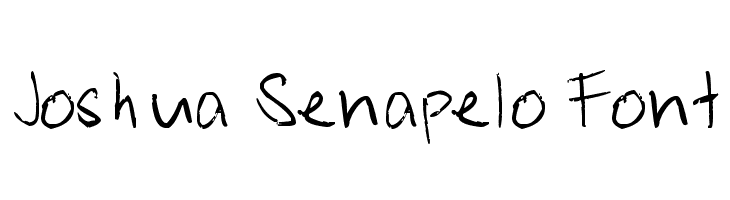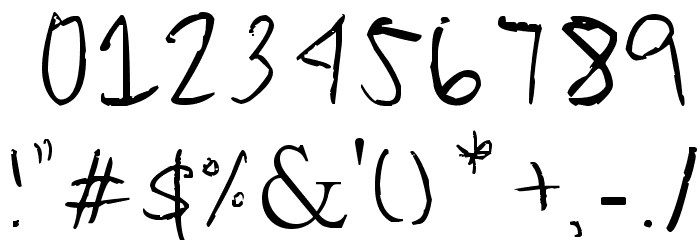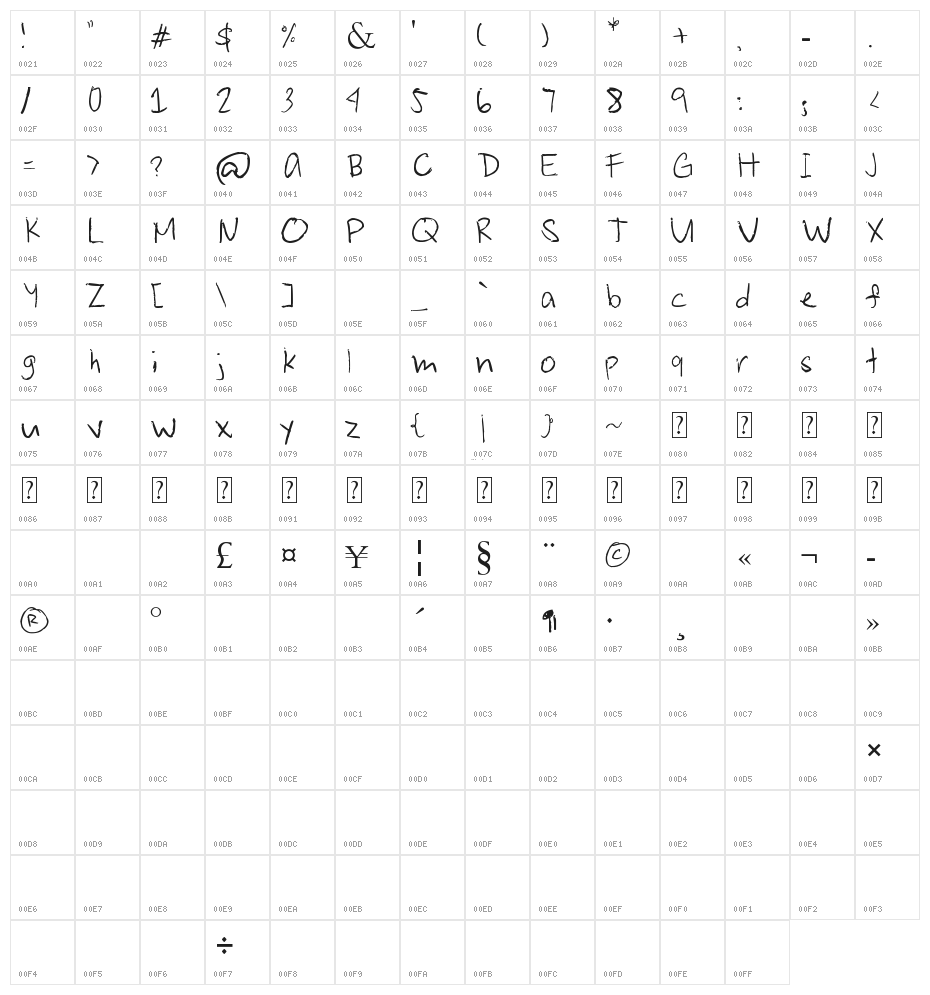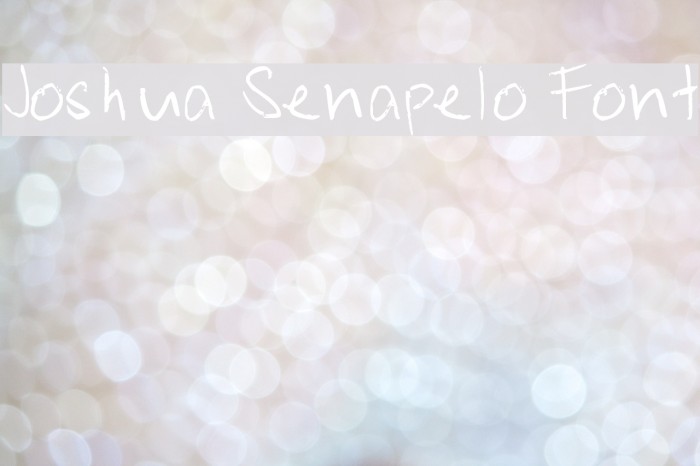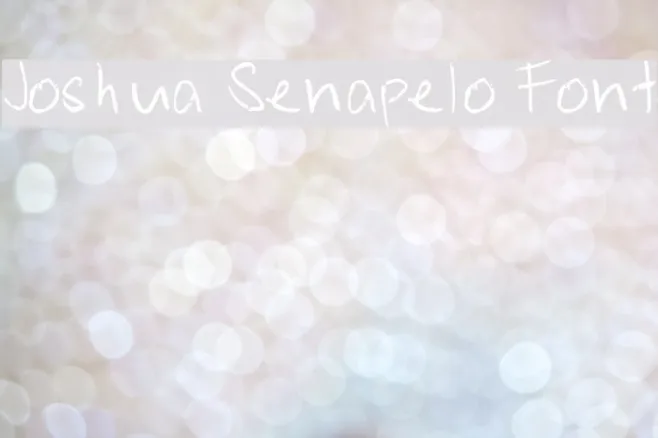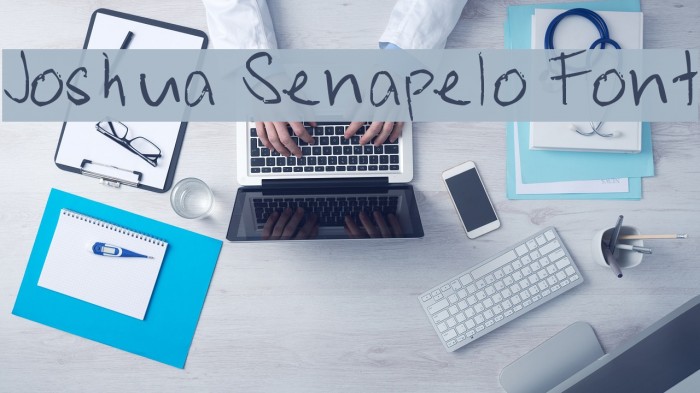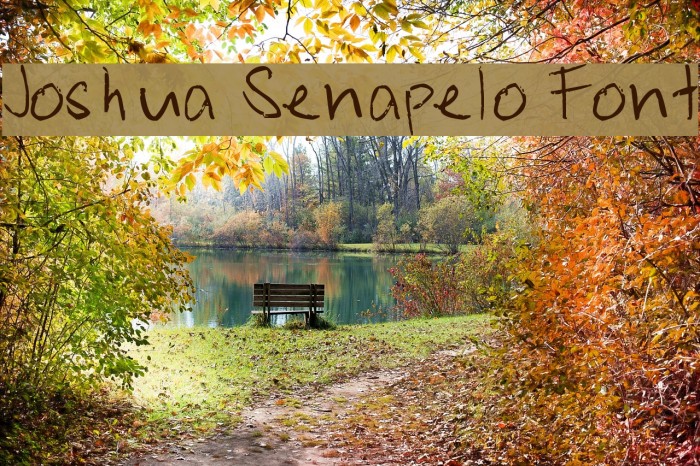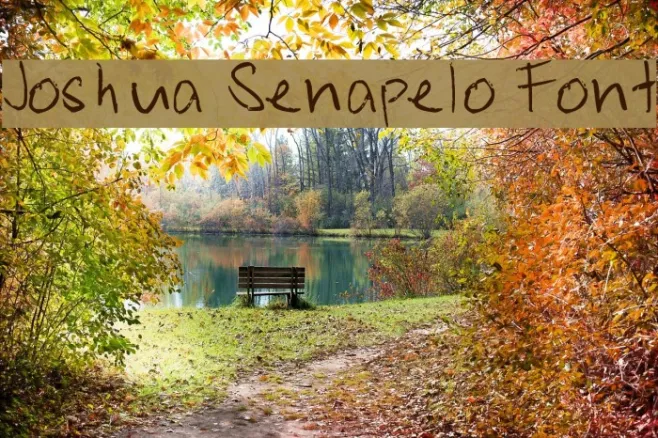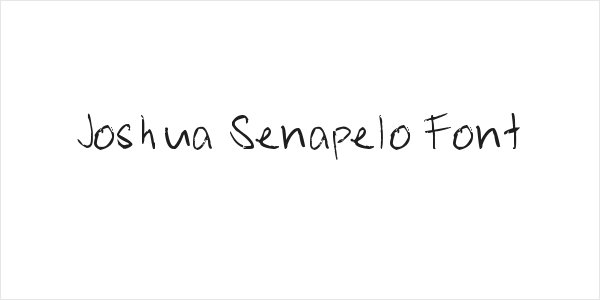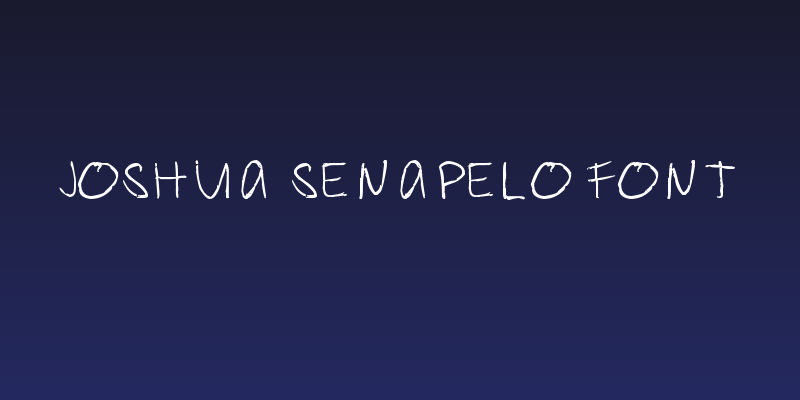
Joshua Senapelo Font Font
Joshua Senapelo Font Description
This font features a playful and casual handwritten style, characterized by its irregular strokes and slightly uneven baseline. The letters exhibit a natural, organic flow, with varying thickness that adds a dynamic and lively feel. The uppercase and lowercase letters maintain a consistent style, with the uppercase being slightly larger and more pronounced. Numbers and special characters are crafted with the same whimsical touch, making them blend seamlessly with the alphabet. The overall appearance is informal and friendly, making it suitable for projects that require a personal or creative touch.
Joshua Senapelo
| Proposed Projects | Ideal for greeting cards, personal invitations, children's books, and creative branding. |